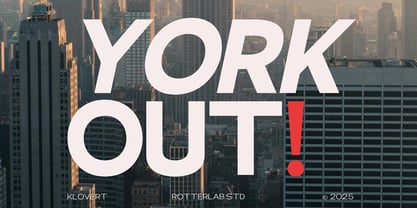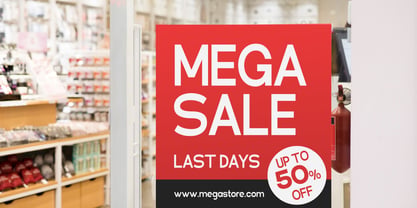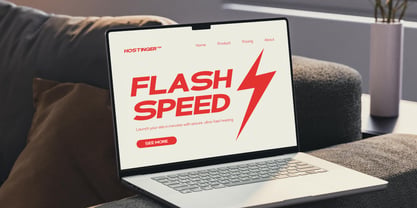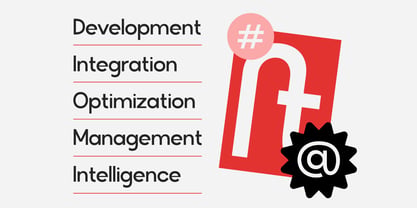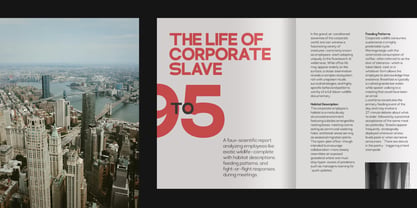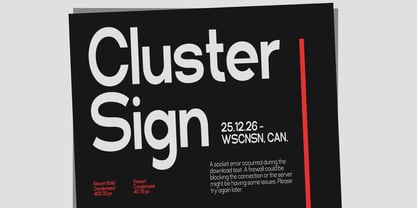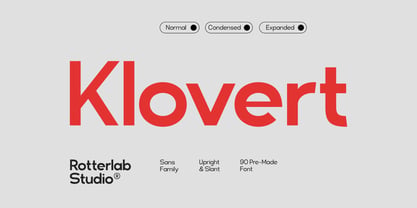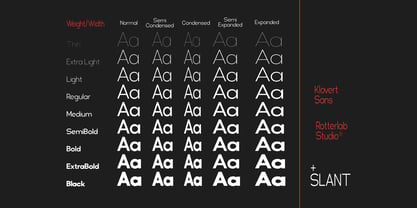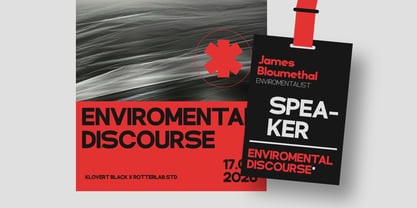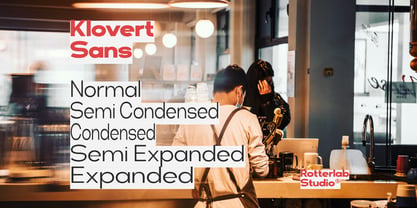
Klovert
Klovert is a modern sans serif type family designed for bold, clean, and confident visual communication. With its strong structure and balanced proportions, Klovert delivers a contemporary look that performs exceptionally well in both display and text settings. The family offers Normal, Condensed, and Expanded widths, along with Upright and Slant styles, providing extensive flexibility for complex typographic systems. With a total of 90 pre-made fonts, Klovert is built to support large-scale branding projects, editorial design, and modern digital interfaces. Klovert’s clarity and versatility make it an excellent choice for logos, branding, headlines, editorial layouts, web design, advertising, and packaging. Key Features: Modern sans serif family Multiple widths: Normal, Condensed, Expanded Upright & Slant styles 90 fonts in total Clean, strong, and highly readable Ideal for branding, editorial, and digital design Designed by Rotterlab Studio®, Klovert is a reliable and flexible type family for contemporary design needs.